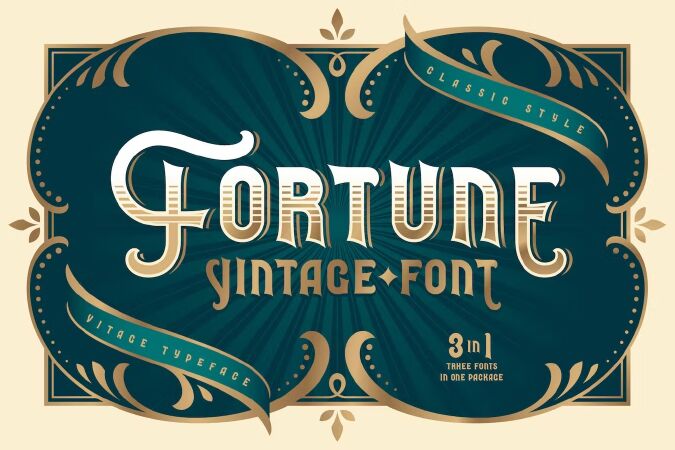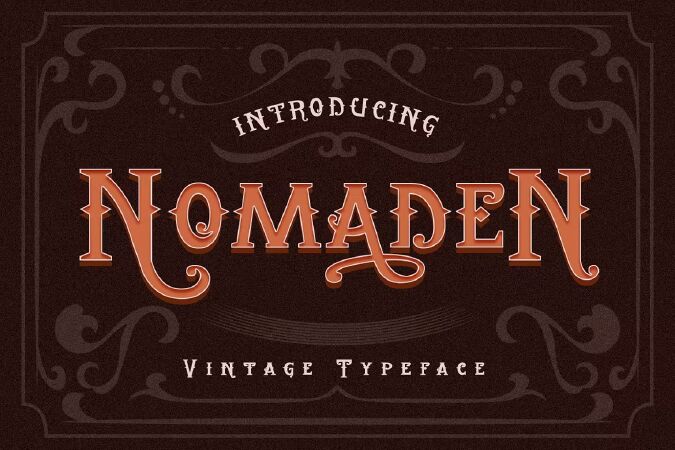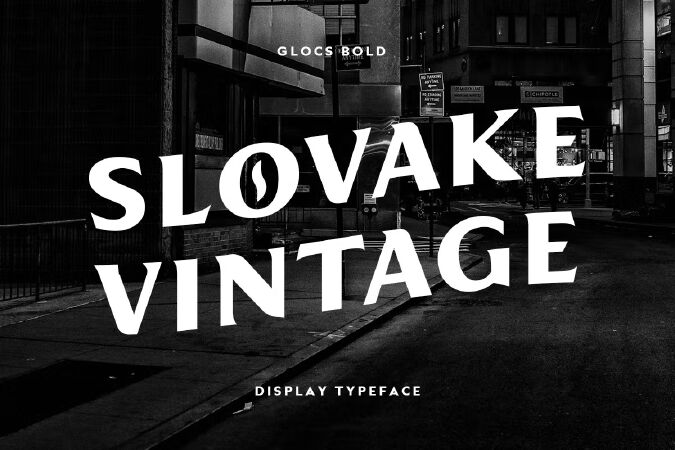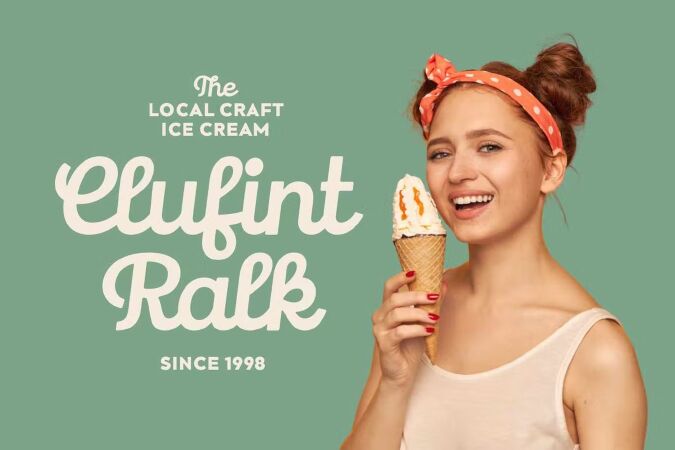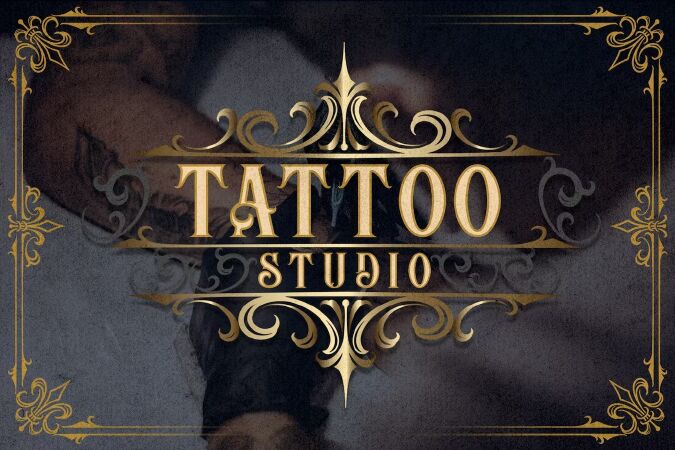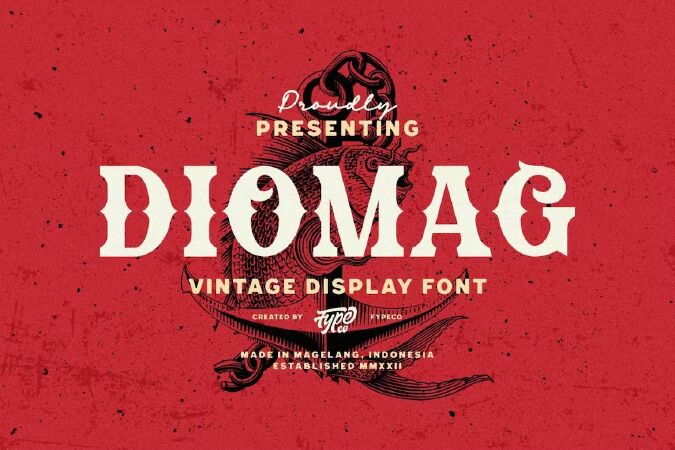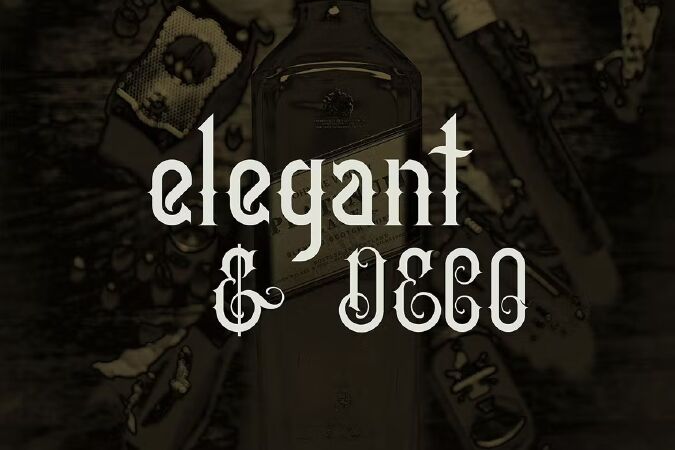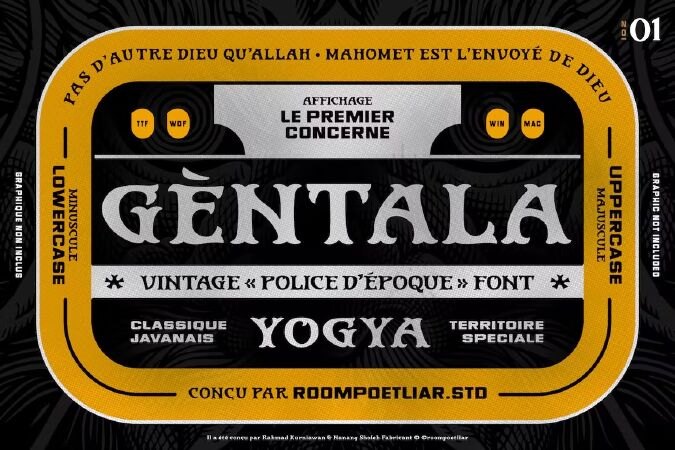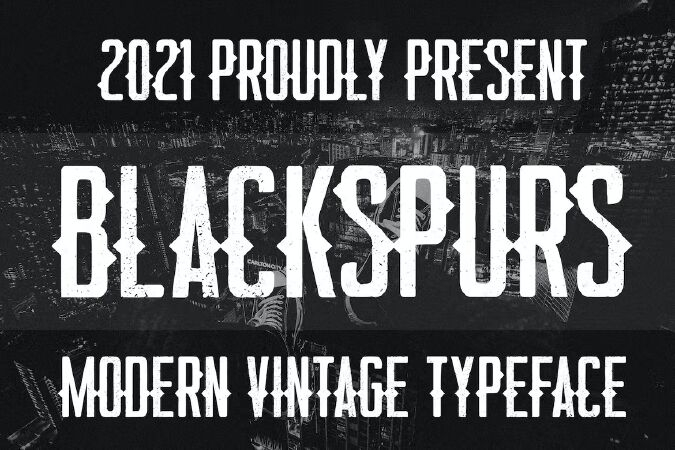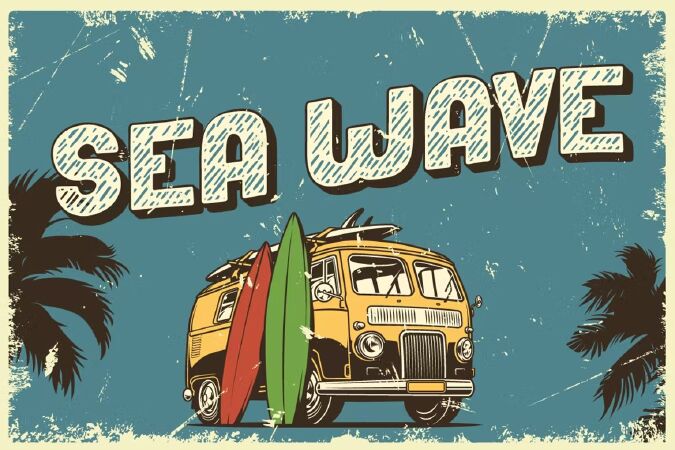
Top 15 Best Vintage Fonts for Designers 2023
Very few good quality vintage fonts exist. If you are a designer, and are in dire need of the perfect typeface for your new project, let us help you. Here we have 15 Best Vintage Fonts for Designers 2023.
1 Fortune Vintage Font
Introducing Fortune Vintage Font set. This typeface has an old school look with classic western shapes. Fortune Vintage Font has three "layers" for more convenient recoloring. All of the small letters has one or two alternates with bottom expanded shape*. Fortune Vintage Font supports most of the European languages and also has Ukrainian Cyrillic characters.
2 Vintage Font
Looking to make your brand unique and memorable? Maybe you wish to create advertisements that draw attention? A captivating vintage font is a great way to do it!
Introducing Nomaden– A Vintage Typeface Font.
This exquisite font will look fantastic on packaging, clothing, printed material, and everything else your brand needs. On top of this, you can also use it for websites and social media, making sure that you always stand out from the crowd.
• Multilingual & Ligature Support
• Full sets of Punctuation and Numerals
3 Fibre - Vintage Font
Fibre is a handwritten Vintage feel font, all the basic characters are unique and not one has the same noise. The kerning and font metricks are designed to suit the best reading experience a all caps font can have. Created by Krisjanis Mezulis at WildOnes.
4 Glocs Vintage Font
Glocs is the perfect font for anyone looking to add some vintage flair to their designs. So if you’re looking to make a statement with your work, then this is the font for you!
Glocs is the perfect font for those who appreciate vintage style with a modern touch. It’s perfect for creating unique and stylish designs for t-shirts, logos, badges, and more.
• Multilingual support and complete character set
5 Vlated - Vintage Font
Vlated is Script and Slab Serif fonts Vintage looks and feel inspired by the 1980s lettering design made stronger and bolder for today's projects that look more vintage. The goal was to take the simple but effective designs from this era. Vlated have 3 fonts, 2 script and 1 slab serif. Vlated fonts are great for product logo, poster, headline, card logo, clothing brand logo, lettering artwork, t-shirt designs, Vintage design, magazine, packaging, stationery and much more. Easily creates your own logo type with fonts. Vlated has an Open Type feature to access a large selection of unique alternative letters and many ligatures to make it easier for you to create.
6 Hanoverians Vintage Font
Introducing our new product the name is Hanoverians Vintage Font. Vintage Display Serif font that feels beautiful classy, elegant, and modern. This font is perfectly suited for a wide variety of projects, such as signature, stationery, logo, wedding, typography quotes, magazine or book cover, website header, clothing, branding, packaging design, and more. Also, fashion-related branding or editorial design displays both masculine and feminine qualities.
15 Qwerly Vintage Font
Qwerly fonts is a brand new font with a vintage look and style.
qwerly font inspired by the old newspaper headline lettering, the classic posters,and back to the 1900’s. Use it however you see fit enjoys!
This font was created for designing covers, labels, posters, logos, branding, etc that need a vintage design feel.